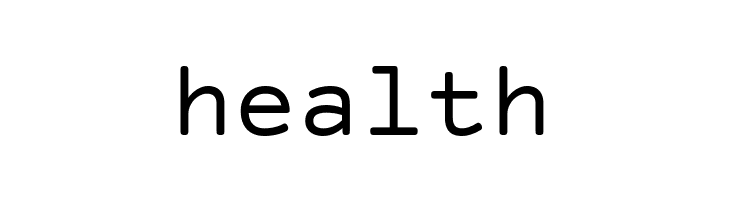
A clean, modern sans-serif monospaced font with low contrast and uniform spacing.
A bold, monospaced sans-serif font with a modern and clean design.
A clean, monospaced font perfect for coding and technical documentation.
A bold, monospaced font with a classic typewriter style.
A monospaced font with a classic typewriter style, offering clarity and uniformity.
A bold, italic monospaced font with a classic typewriter style.
A thin, monospaced typewriter-style font with a vintage appeal.
A modern, monospaced italic typeface with clean lines and uniform spacing.
A clean, modern sans-serif monospaced font with low contrast and excellent readability.
A modern, monospaced font with a clean and uniform design, perfect for coding.